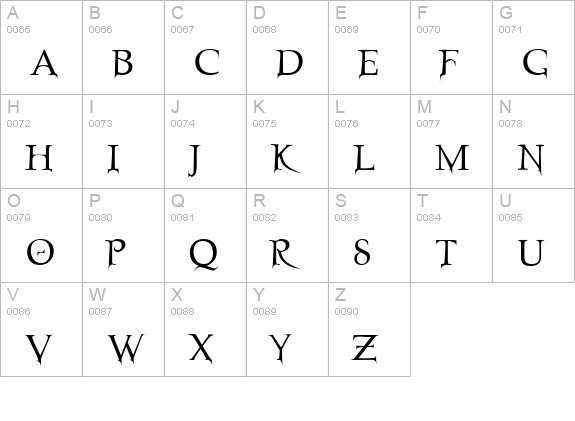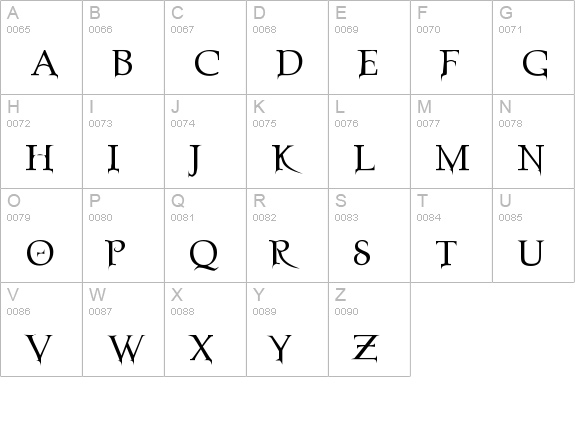
Nosfer Font Details
Nosfer font is a unique and striking typeface that combines classic elegance with a modern twist. Its sharp edges and intricate details make it perfect for a wide range of design projects, from elegant invitations to eye-catching posters. The bold strokes and clean lines give Nosfer font a strong presence, making it ideal for headlines and branding. Best of all, Nosfer font is available for free download at FontsMarket.com. Now you can add this stylish and versatile font to your collection without any cost. Whether you're a designer looking to elevate your work or a hobbyist wanting to experiment with new styles, Nosfer font is the perfect choice. Download it today and start creating stunning designs with ease.